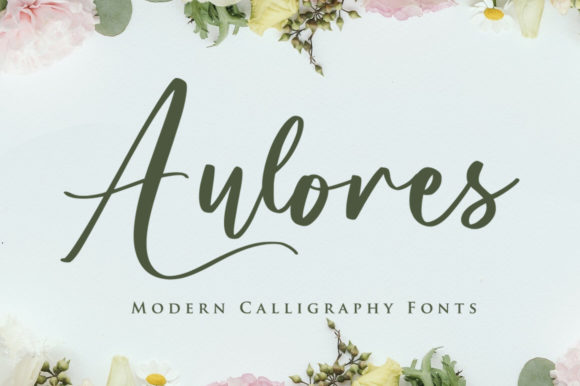
The Ultimate Guide to Aulores Font: Elevate Your Designs with Elegance
An Honest Review of Aulores Font
Aulores Font is a fancy and relaxed handwritten font that has stolen my heart. Here’s what I love about it:
- ✨ Stylish and beautiful: Aulores Font adds a touch of elegance to any design project.
- ✅ Highly versatile: It can be used for a wide range of projects, from logos and branding to invitations and social media graphics.
- 💫 Unique character: Aulores Font has a distinct personality that sets it apart from other fonts.
While Aulores Font is an amazing addition to any design project, it’s not perfect. Here are a few small quirks to keep in mind:
- 🤔 Limited use in body text: Aulores Font is best suited for headlines and titles, as it can be a bit challenging to read in large blocks of text.
- ⚠️ Not suitable for very small sizes: Aulores Font can become a bit blurry when used at very small sizes, so it’s best to use it at larger sizes to ensure optimal readability.
The Story Behind Aulores Font
Aulores Font was designed with the intention of creating a beautiful and elegant handwritten font that captures the essence of luxury and sophistication. The designer aimed to create a font that is both stylish and relaxed, making it perfect for a wide range of design projects.
| Font Name | Aulores Font |
| Author | Jupiter Studio |
| What is Aulores Font? | Aulores Font is a fancy and relaxed handwritten font designed for creative projects. |
| Is Aulores Font suitable for body text? | No, Aulores Font is best suited for headlines and titles, as it can be challenging to read in large blocks of text. |
| Is Aulores Font available in different languages? | Yes, Aulores Font supports multiple languages, but be sure to check the font documentation for specific language support. |